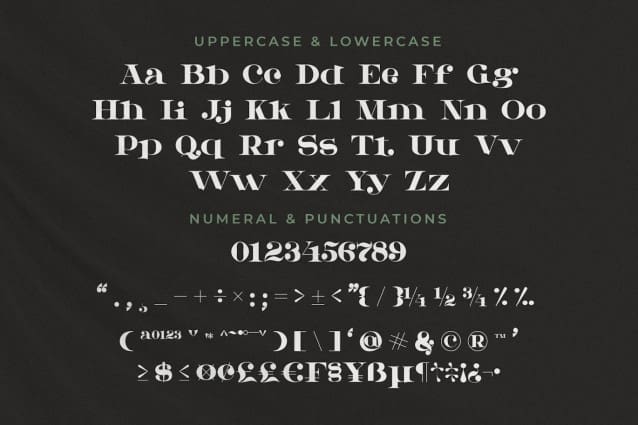
Meotec Font
Meotec Font – A Modern Serif Font, from Jeritype Studio, is a premium A Modern Serif font, perfect for any project requiring a distinctive, high-end touch.